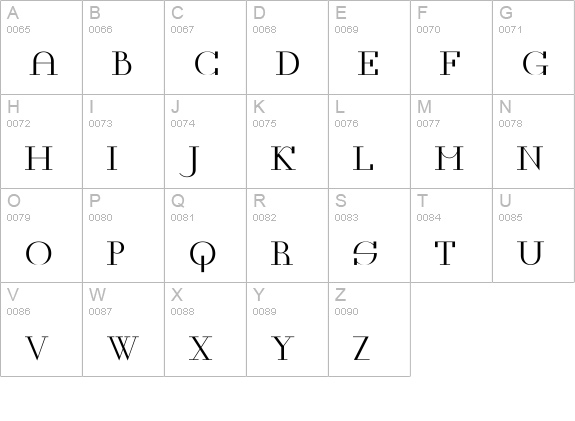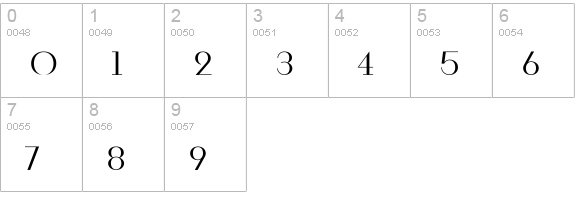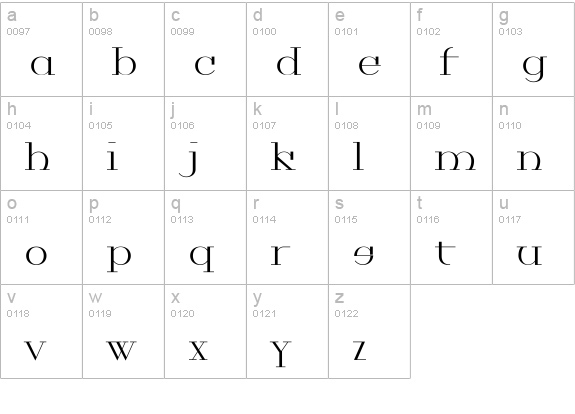
Royalty DaMa Average font is a stylish and elegant typeface that exudes sophistication and grace. With its delicate lines and regal curves, this font is perfect for adding a touch of royalty to any design project. The combination of classic and modern elements makes Royalty DaMa Average font versatile and suitable for a wide range of applications. One of the best things about Royalty DaMa Average font is that it is available for free! You can easily download this exquisite font at FontsMarket.com and add a touch of elegance to your projects without any cost. Whether you're working on a branding project, invitation design, or any other creative endeavor, Royalty DaMa Average font will elevate your work to a whole new level. Don't miss out on the opportunity to enhance your designs with this stunning font that is both timeless and contemporary. Download Royalty DaMa Average font for free today and bring a touch of royalty to your creations.